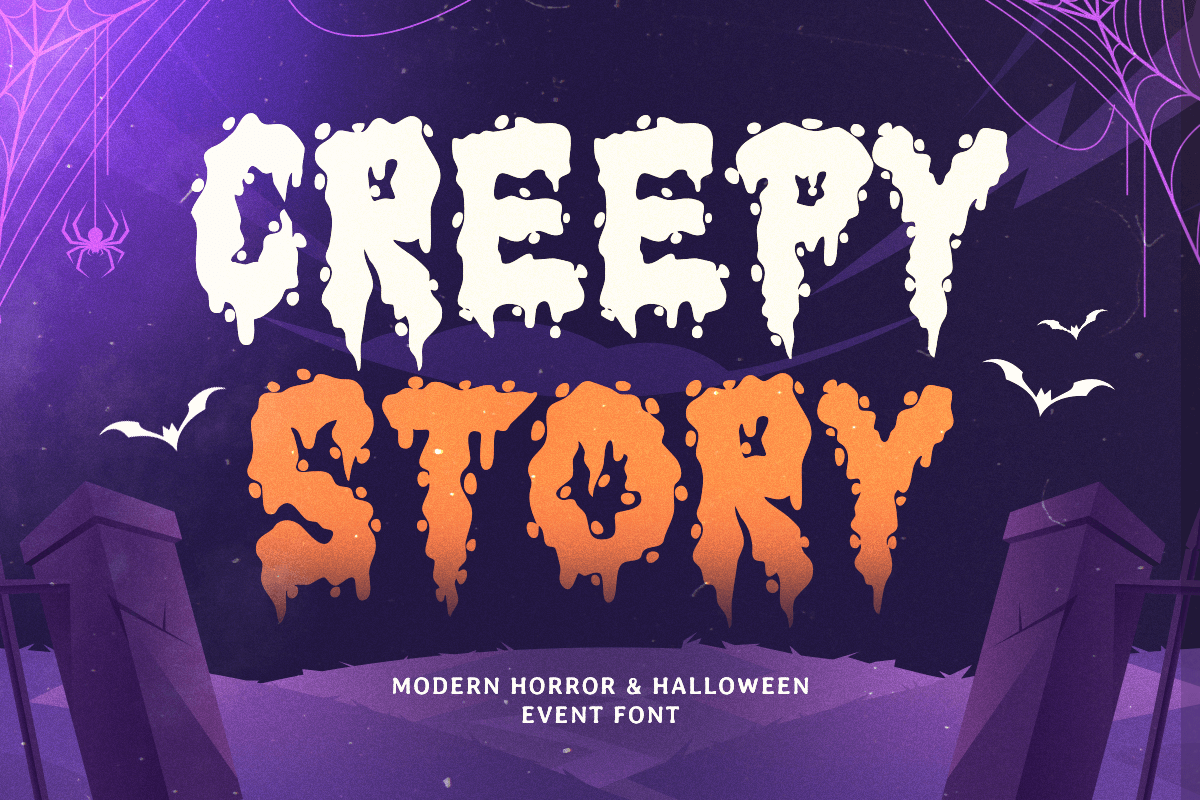
Creepy Story
-Display Modern Halloween fontCreepy Story - Display Modern Halloween font
CREEPY STORY is a modern Halloween display font crafted to bring a spooky and playful vibe to your designs. Perfect for posters, branding, invitations, social media, and seasonal projects, it combines a bold, eye-catching style with a touch of eeriness.
With distinctive letterforms and strong visual impact, CREEPY STORY ensures your Halloween projects stand out while remaining legible and stylish in both digital and print formats.
CREEPY STORY – Display Modern Halloween Font Features
Bold and playful Halloween-themed character set
Perfect for branding, posters, and seasonal designs
Uppercase, lowercase, numerals, and punctuation included
OpenType features for extra versatility
Make your spooky projects unforgettable with CREEPY STORY – a bold, modern, and festive Halloween font.